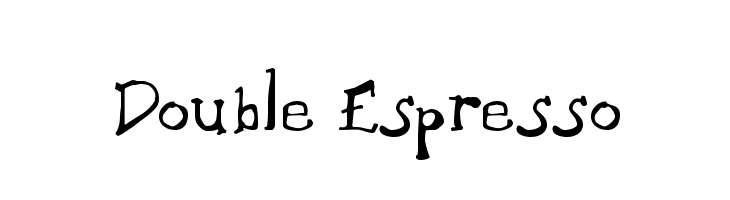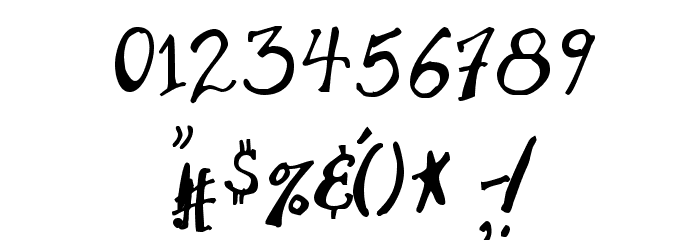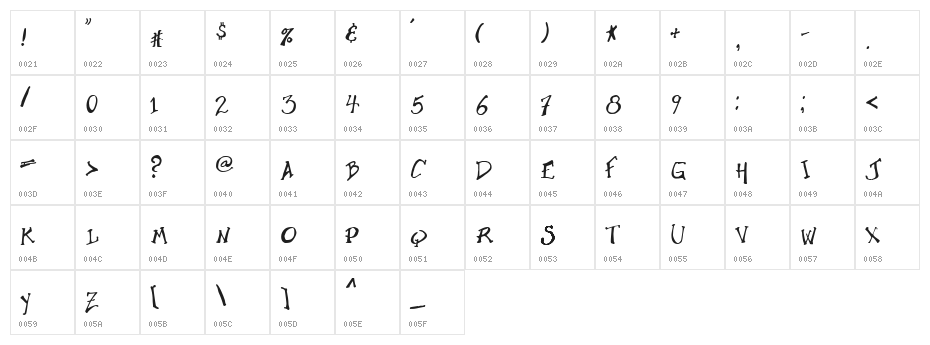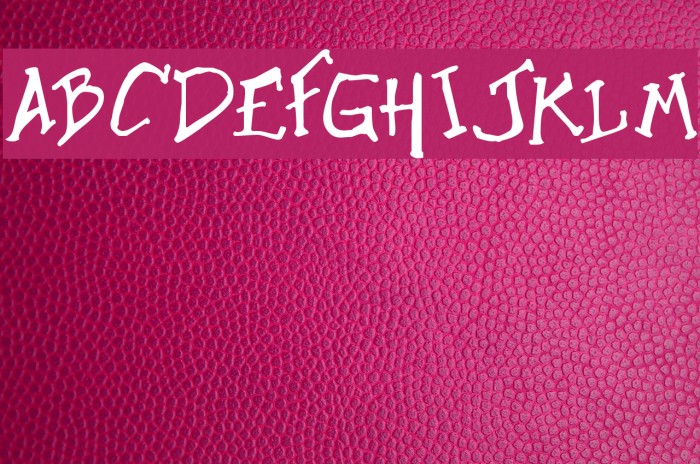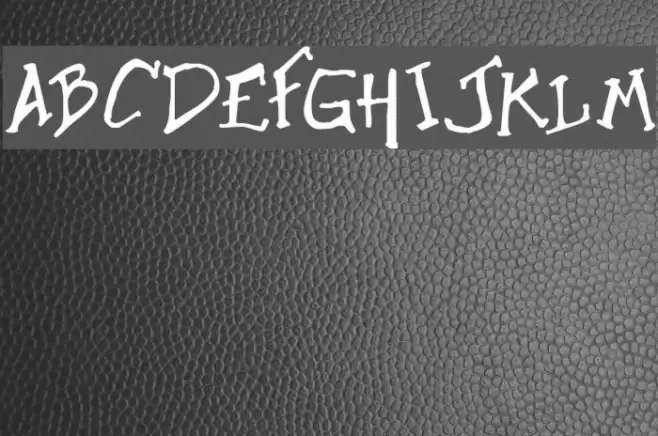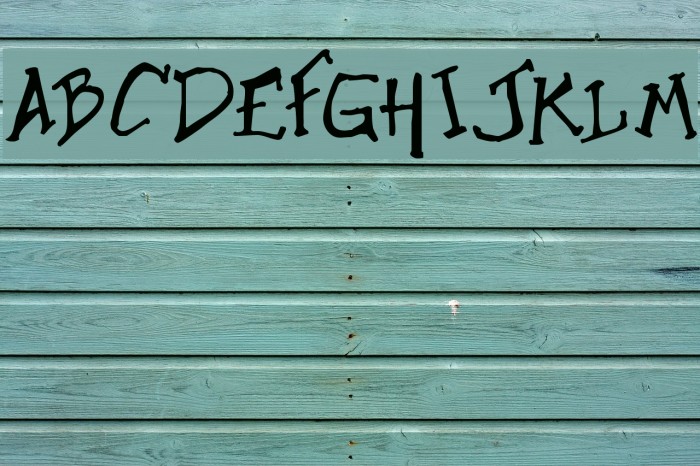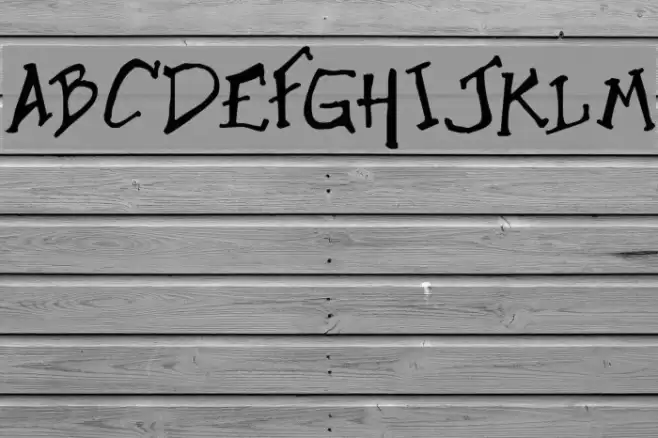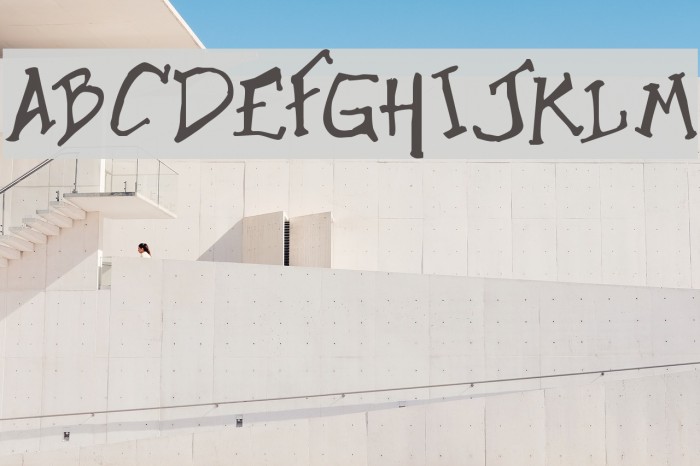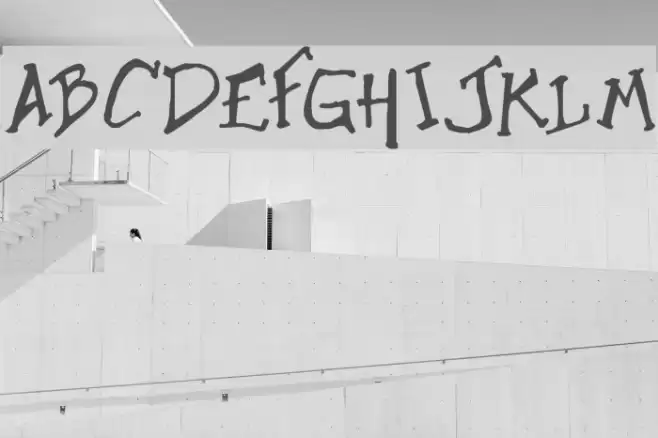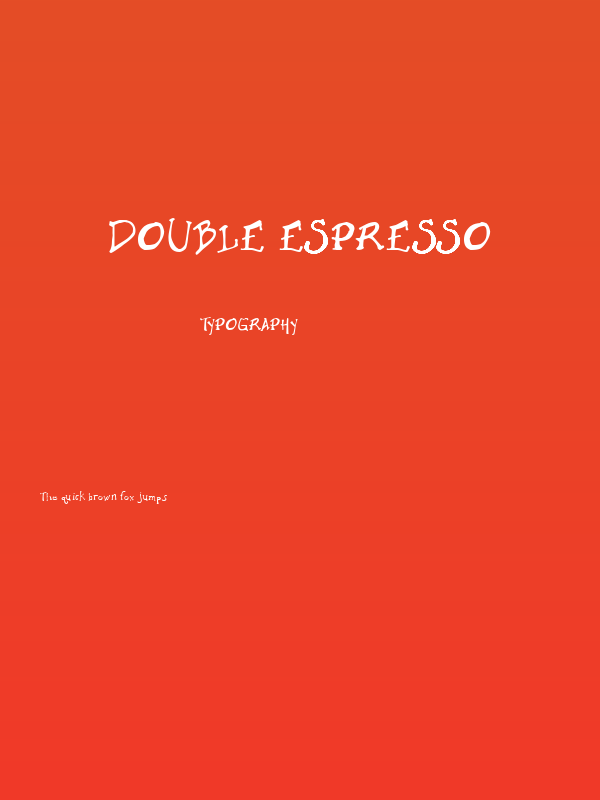
Double Espresso Font
Double Espresso Description
This font features a dynamic and energetic style, characterized by its irregular and playful letterforms. The strokes are varied, with some letters exhibiting a bold, brush-like quality, while others are more delicate and whimsical. The uppercase letters have a distinctive flair, with unique curves and angles that give them a lively appearance. The lowercase letters maintain this playful aesthetic, with some characters having exaggerated loops and swirls. The numbers and special characters continue this theme, adding a touch of creativity and spontaneity. Overall, this font exudes a sense of fun and movement, making it ideal for projects that require a bold and artistic touch.